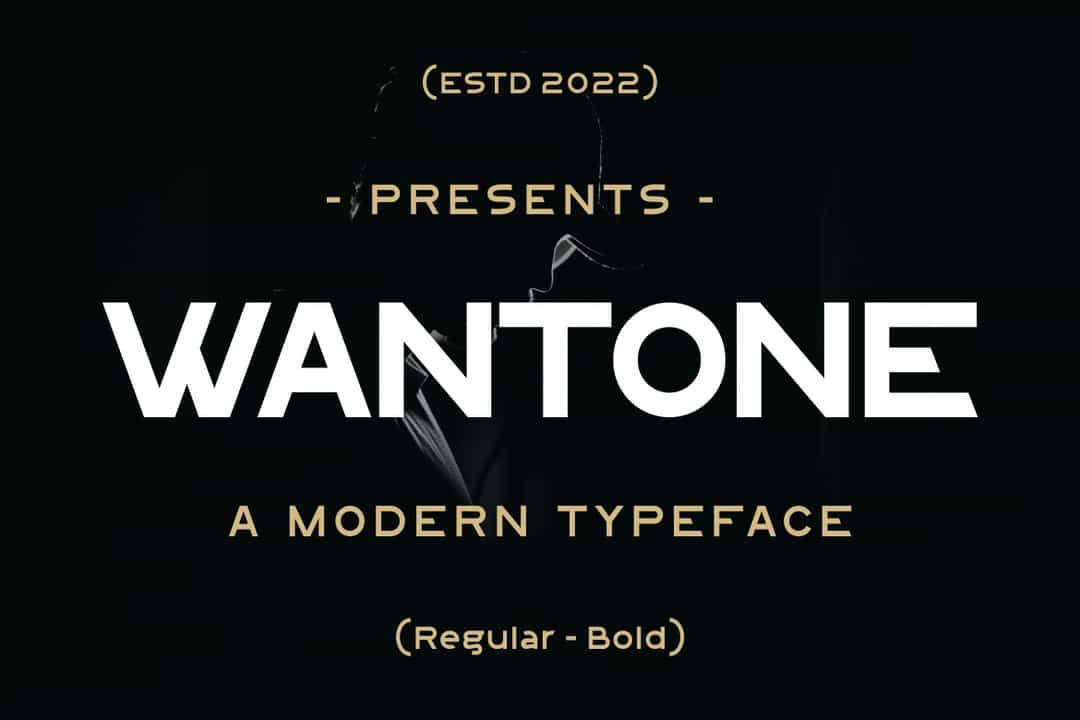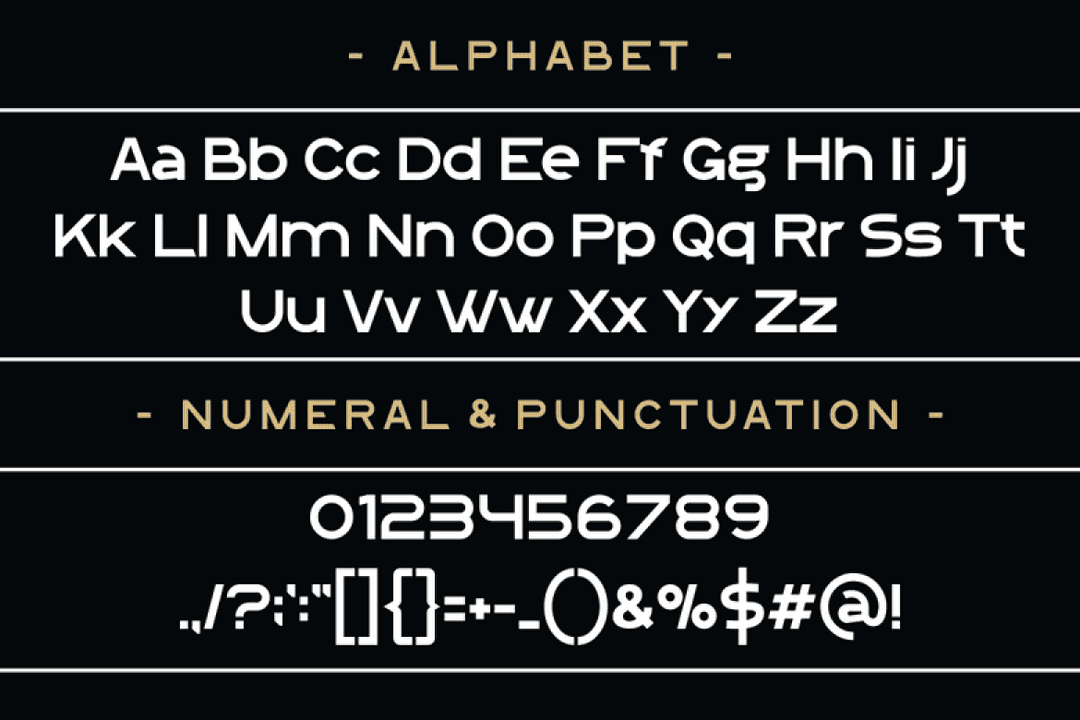
Wantone is an authentic and bold sans serif font. Perfect for branding projects such as logo printing on T-shirts and product packaging. Wantone looks beautiful no matter the situation!